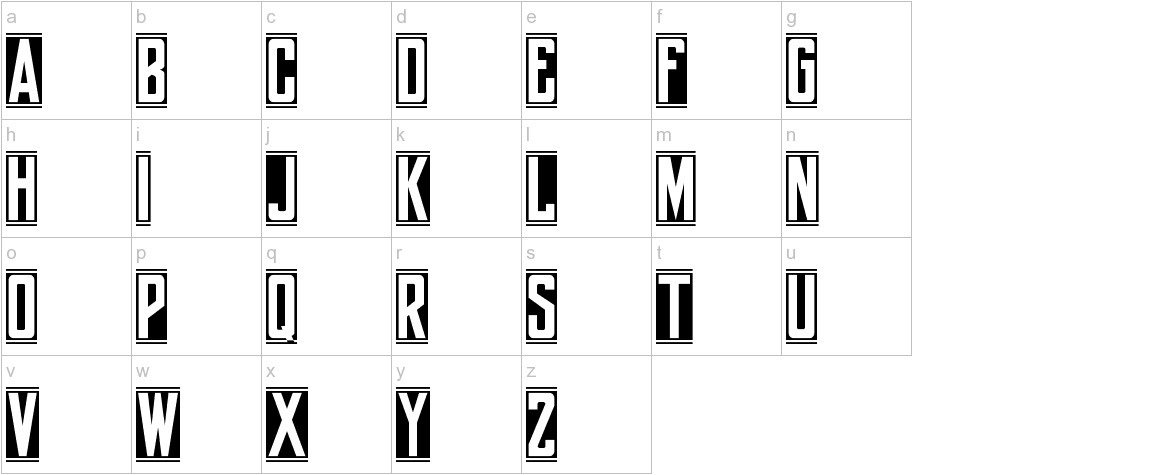
yorkwhiteletter
York Whiteletter is designed for making quick and easy banners and logos. Inspired by a Delittle design called ?Eboracum №3 Improved White Letter Type? and late 18th century woodtype. York Whiteletter can be used monospaced, but I decided to include ligatures to improve the fit of common kern pairs. Numerous ends and ornaments are included. Enable Ligatures and use the Glyphs Palette or Character Map to add end pieces and ornaments (see your apps/OS documentation on how to insert ?special characters? and enable ligatures in a font).